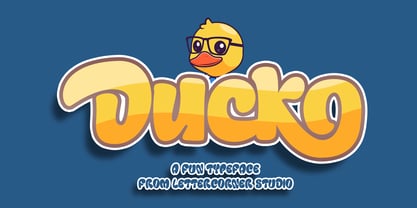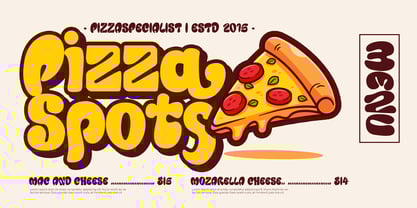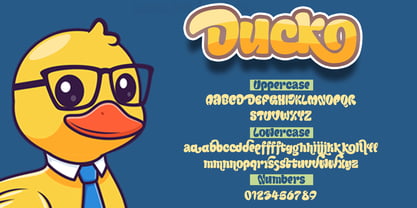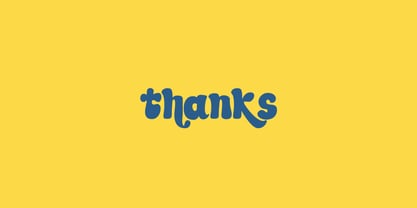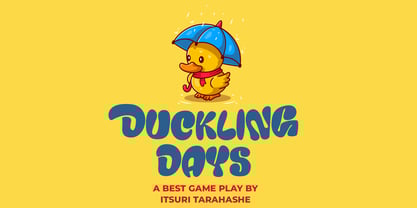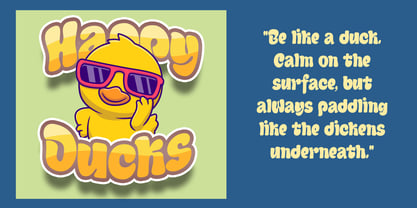
Ducko
by Mevstory Studio
The Ducko Font Family was designed by Muhammad Afif Ersya and published by Mevstory Studio. Ducko contains 1 styles.
Ducko is a bold and quirky Display Handwritten font inspired by the cheerful charm of a duck! With strong strokes and a dash of personality, Ducko brings a fun, modern twist to any creative project.
It comes in a clean Regular style that’s confident yet friendly — like a duck waddling into the spotlight with style. Simple, bold, and full of attitude, every letter has its own little flair.
With multilingual support and high flexibility, Ducko is perfect for logos, packaging, posters, or anything that needs a splash of fun without losing clarity. Each word you set in Ducko feels alive, expressive, and ready to stand out.
Ducko isn’t just a font — it’s a feathered friend for your wildest ideas.
Designers: Muhammad Afif Ersya
Publisher: Mevstory Studio
Foundry: Mevstory Studio
Design Owner: Mevstory Studio